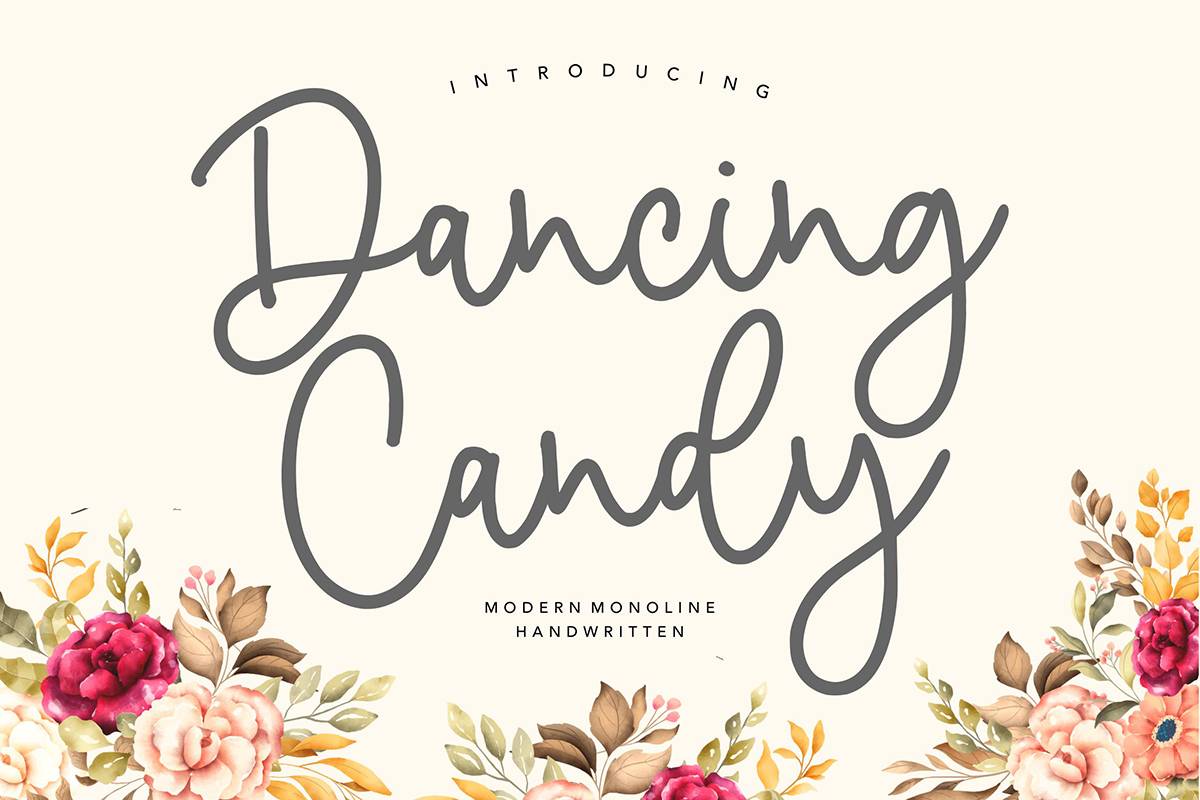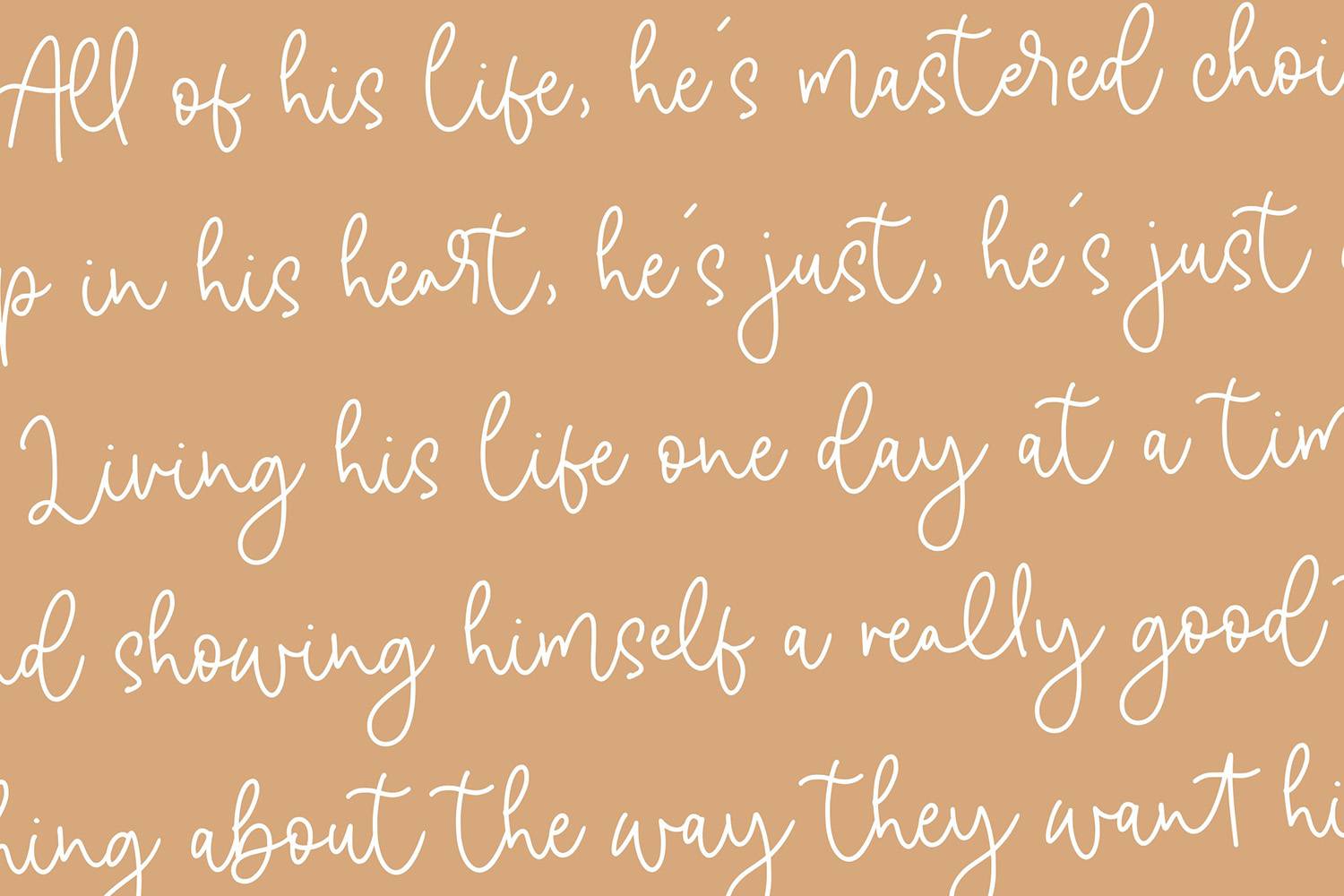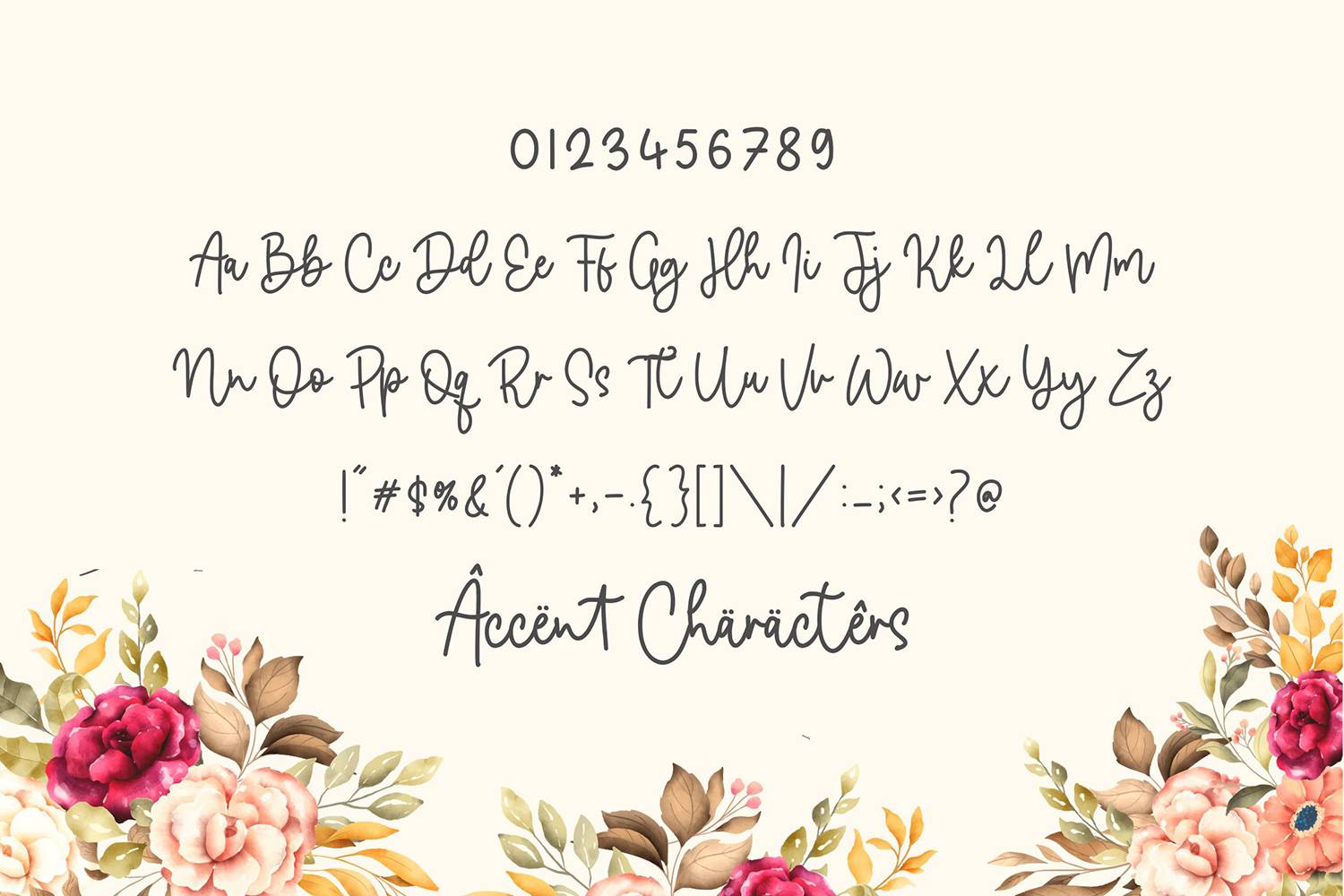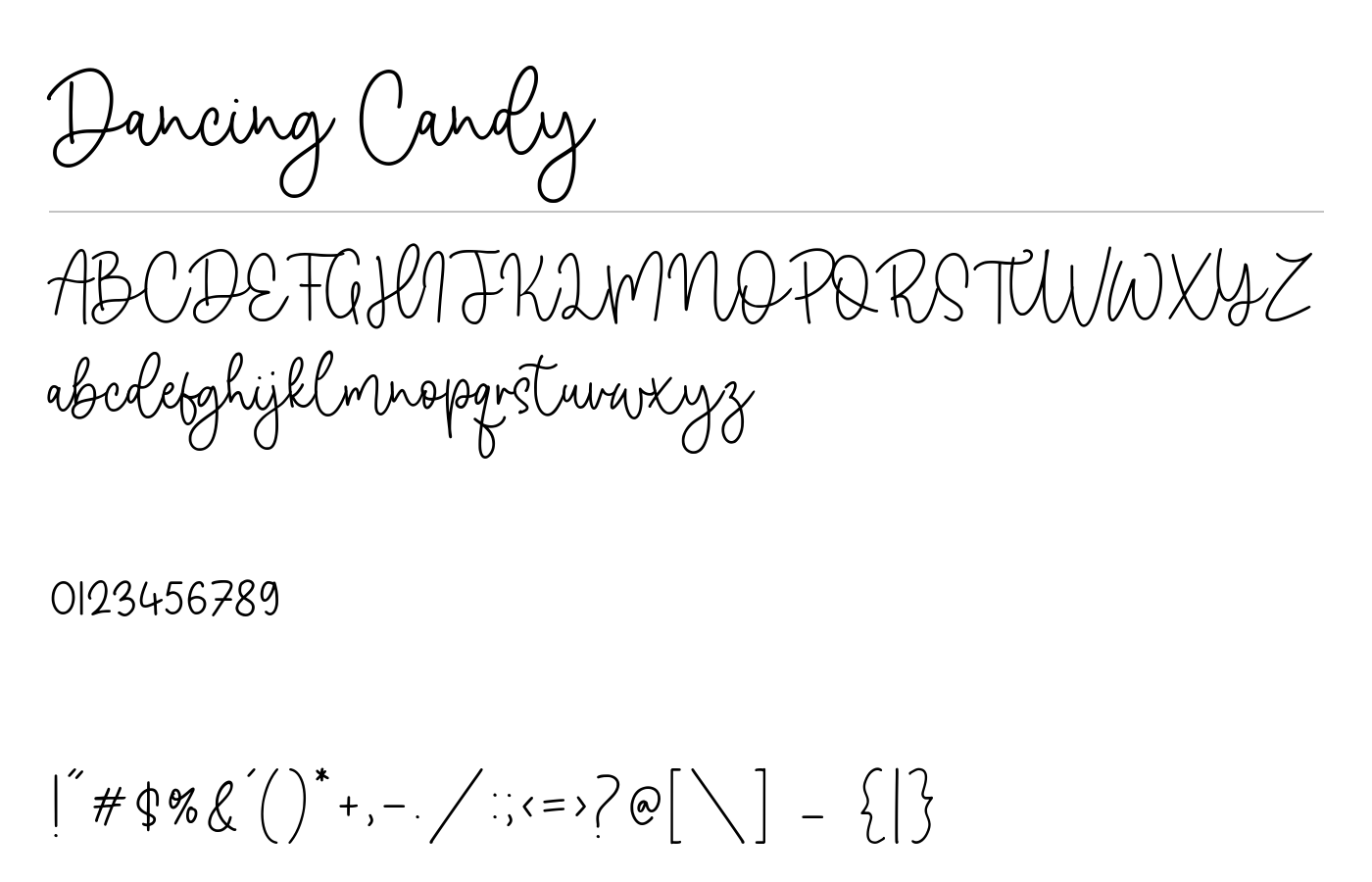
Dancing Candy is a playful, handwritten script font featuring thin, smooth strokes with a tall x-height that adds to its airy and elegant feel. Its casual, flowing letterforms make it ideal for creative projects like invitations, branding for lifestyle and fashion, or social media graphics where a friendly, personal touch is desired. This font brings a lighthearted, charming energy perfect for conveying warmth and approachability in a modern yet whimsical style.
Dancing Candy Font
About Dancing Candy Font